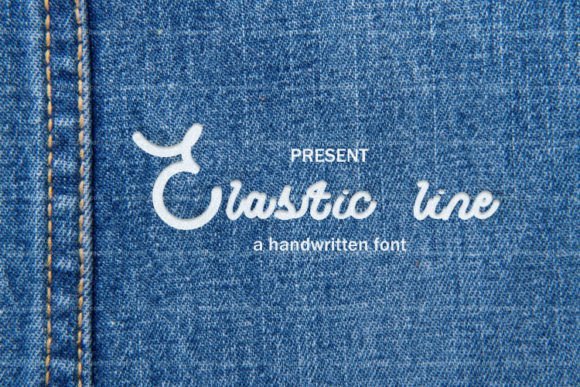
Unleash Your Creativity with Elastic Line Font
Have you ever stared at a blank page, struggling to bring your creative vision to life? That’s where the magic of typography comes in. The right font can transport your audience to a world of imagination and wonder. For designers, the perfect font can be the missing piece of the puzzle that turns a good idea into a masterpiece.
Enter the Elastic Line Font, a unique and captivating handwritten font that’s about to become your new go-to companion. This meticulously crafted font is a game-changer for any project, from advertising and branding to digital art and publishing. With its high level of detail and versatility, Elastic Line Font is the perfect addition to your font library, elevating your creations to new heights.
Elastic Line Font Key Features
- Unique Design: Elastic Line Font features a dynamic, hand-drawn aesthetic with varying line widths, giving it a distinctive and eye-catching appearance.
- Language Support: Supports multiple languages, including Latin, Cyrillic, and Greek alphabets, making it suitable for international designs and publications.
Elastic Line Font Review
Overall, I’m impressed with the Elastic Line Font. Here are some things that really stand out: ✨
- Unique style: The Elastic Line Font has a distinct, hand-drawn feel that sets it apart from more traditional fonts.
- High flexibility: The font is incredibly versatile and can be used in a wide range of applications, from logos to body text.
- Great for creative projects: The Elastic Line Font is perfect for designers who want to add a touch of personality to their work.
- May not be suitable for formal or corporate work: The font’s informal style may not be the best fit for more traditional or conservative design projects.
- Some characters may not be fully formed: Depending on the specific character, the font may not be fully formed or may be missing certain details.
- May require adjustments for smaller text sizes: The font’s unique style can sometimes make it difficult to read at smaller text sizes.
Overall, I think the Elastic Line Font is a great choice for designers who want to add some creativity and personality to their work. While it may not be suitable for every project, it’s a fantastic option for those looking for a unique and eye-catching font.
To get the most out of the Elastic Line Font, try the following tips:
- Experiment with different font sizes and colors to create visually appealing combinations.
- Use the font to create dynamic headings and titles.
- Combine the font with other creative elements, such as graphics and illustrations, to add visual interest.
The Elastic Line Font is ideal for:
- Creating modern and trendy designs.
- Adding a touch of whimsy and playfulness to your designs.
- Designing for social media and digital platforms.
- Use Elastic Line Font for the title of the destination, creating a sense of movement and energy.
- Combine with a minimalist color palette and bold graphics to emphasize the attractions.
- Experiment with different line weights and spacing to create a unique and playful feel.
- Pair Elastic Line Font with a bold, geometric font for contrast and visual interest.
- Use a mix of digital and hand-drawn elements to add texture and personality.
- Balance the playful feel of Elastic Line Font with a clean and simple layout.
- Use Elastic Line Font for the wedding party’s names, creating a sense of movement and connection.
Elastic Line Font Creative Project Ideas
Project 1: Whimsical Travel Poster
Create a visually striking travel poster using Elastic Line Font to highlight the destination and attractions.
How to use Elastic Line Font:
Project 2: Modern Wedding Invitation
Create a stylish and modern wedding invitation using Elastic Line Font to add a touch of sophistication and elegance.
How to use Elastic Line Font: